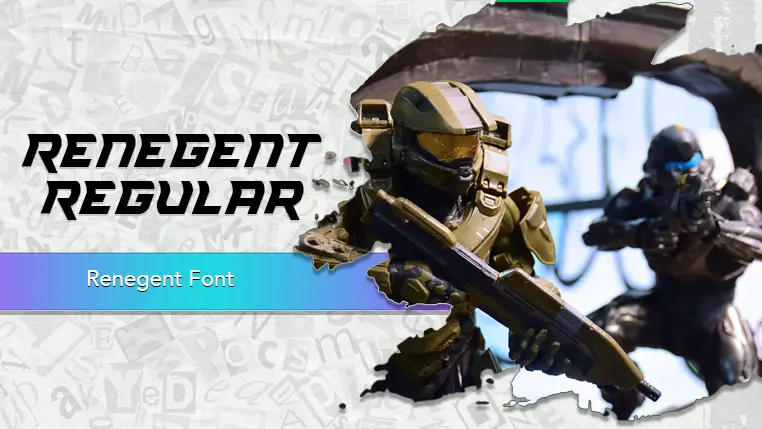
The Renegent font family may be ideal for you if you enjoy working on an artistic design project. The lively, expressive look of this typeface, which was created by Iconian Fonts, makes it ideal for Technology and Science Fiction, Titles and UI elements for video games with sci-fi, cyberpunk, or futuristic themes. Movie posters, trailers, and film titles for action, sci-fi, or dystopian genres, Presentations or infographics related to technology, AI, or advanced concepts. Website headers and navigation for modern, tech-focused, or gaming sites. Headlines, subheadings, and short impactful phrases in any design where you want a bold, modern statement. Album covers or single art for electronic, rock, or experimental music. and other light-hearted visual projects.
Regular, Condensed Regular, Expanded Regular, Italic, Regular, Regular are the eighteen primary font styles of the Renegent font family. You may build dynamic, visually appealing text layouts with the distinct flair that each style offers. With crisp, readable lines and a relaxed tone.